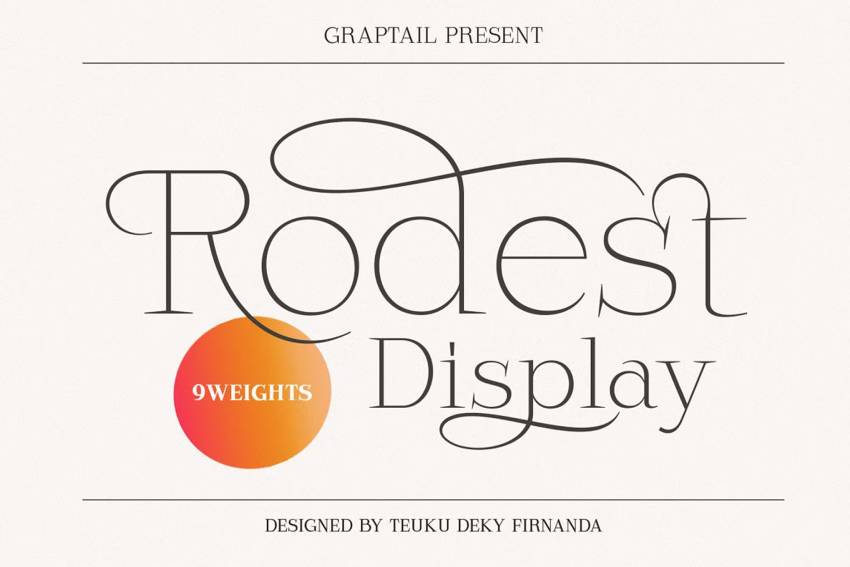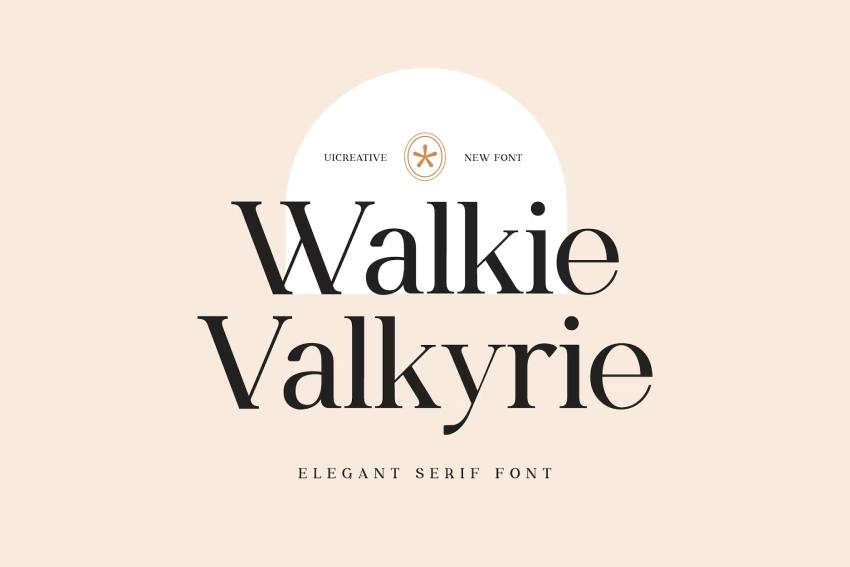
45 Best Thin Serif Fonts (Narrow and Skinny Fonts to Download)
An elegant thin serif font can be an excellent design choice. There are plenty of types of skinny serif fonts to admire, download, and try in your next project. We'll take a look at narrow serif fonts, thin fonts, and more from Envato Elements.
1. Greenold Modern Thin Serif Font
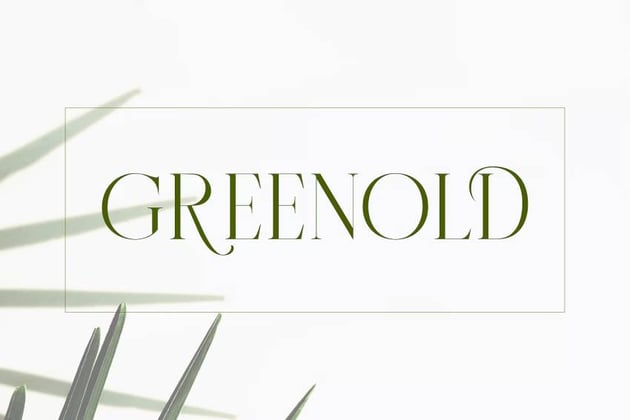
Slim serif fonts like Greenold are a treat to look at in any color. It comes complete with upper and lower case letters along with multilingual characters. Use it for invitations or on social media.
2. Curefancy Elegant Thin Serif Font
Looking for a font that is tall and skinny? Then this entry is coming right on time. It features both a regular font and an italic alternative, letting you play around with different styles.
3. Trovelo Serif Thin Font
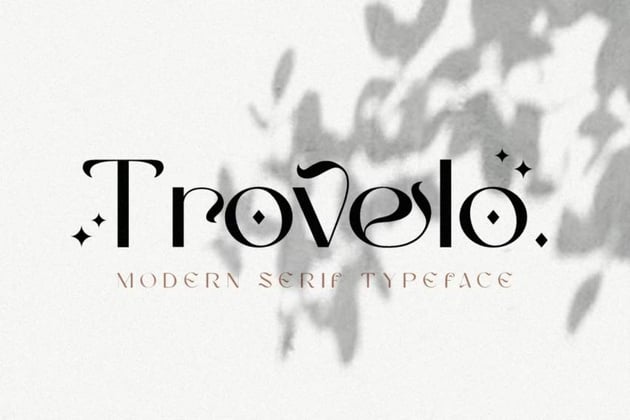
Download Trovelo if you like slim serif fonts with a unique charm. This modern typeface is multilingual and has some different glyph styles. You won't want to skip past this skinny font.
4. Victoria Modern Thin Serif Fashion Font
Go for a stylish thin and tall serif font like Victoria if you're working on a fashionable project. Its lines and serifs are flattering and complement just about any image you could pair it with.
5. Cellofy Narrow Serif Font
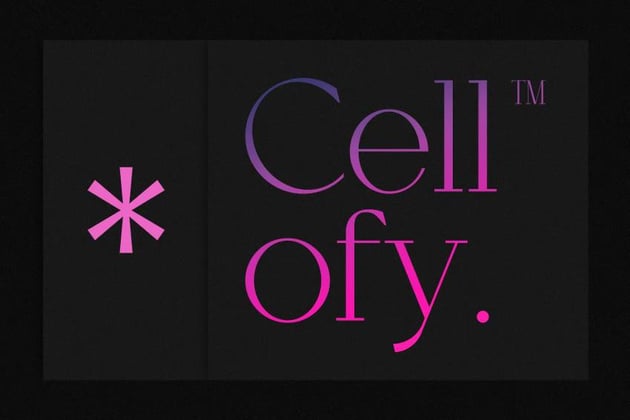
Turn to the Cellofy family if you've been on the lookout for thin modern fonts. It has everything you'd want from a 21st-century typeface, and it can be used just about anywhere.
6. Veilan Tall Serif Font
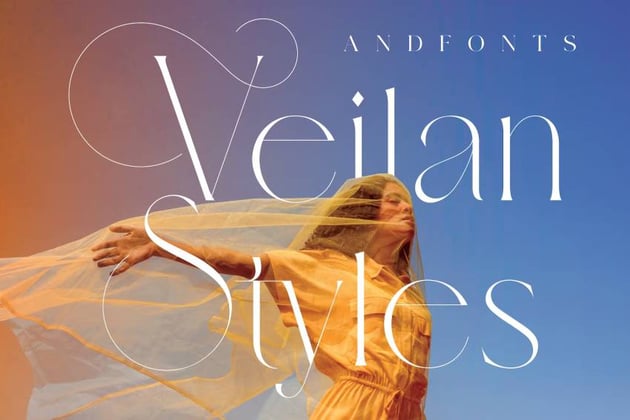
Veilan is for all the fans of thin and tall fonts. Its wispy letters show a sense of elegance and style that's hard to match. This slim serif font's lettering will look great in magazines or invitations.
7. Galvin Slab Serif Font Family Pack
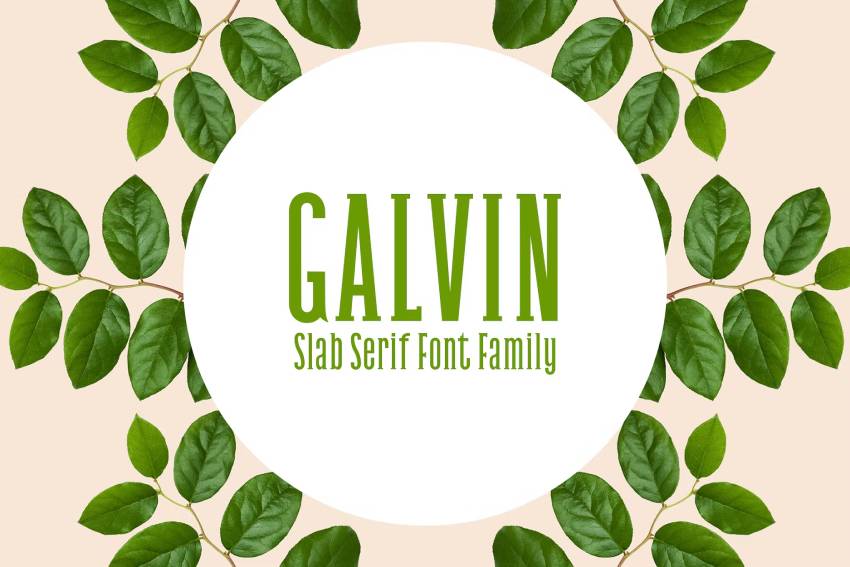
Unlike other thin and tall serif fonts, Galvin aims for a strong, bold aesthetic instead of elegance. Its rigid lines aren't uninviting, though. There are still some lovely curves to be found in this skinny font's glyphs.
8. Goldoni Thin Serif Font
Isn't this a stylish font? It fits in so well with photography. Try it with your fashion photos or photography portfolio, or try it in luxury branding projects.
9. Fulgate Thin Narrow Serif Font
Here's a visually interesting thin and narrow serif font. You don't see a design like this every day; it has such interesting strokes and could be a memorable design choice.
10. Metropolis Thin and Tall Font Family
Thin, straight fonts with lots of straight edges can make for a really memorable look. This one almost has an industrial vibe. Try pairing the skinny font with geometric elements.
11. Lorino Thin Slab Serif Font
Slab serifs are also one of the thin font types out there. This slab is a fun choice, perfect for stylish points of emphasis. Try dressing up the tall serif font in gold or in high-contrast situations.
12. Abell Skinny Serif Font Family Pack
This thin and tall serif font's letters have an unusually angular design. The result is a font that brings an unexpected aesthetic. This one could be a great choice for logo design.
13. Imperiem Regular Typeface
Check out the authoritative vibe we get from this thin serif font. The shape of these letters brings a very official look to the overall font aesthetic.
14. Empresso Classic Thin Slab Serif Font
Here's a thin slab serif that also comes with more. Take advantage of italic, light, regular, and bold weights too. It's a stylish family of thin, modern serif fonts.
15. Porto Display Spur Tall Serif Font
This is a nice thin serif font to add to your collection because you get so much with it. You get a thin font, but you get two other weights, as well as alternates.
16. Opheline Extra Light Thin Serif Font
Here's an elegant, narrow font with plenty of potential. If you're looking for a stylish type design for a minimalist design, this one would fit in nicely. It looks lovely with plenty of space.
17. Secret Darling Classic Monoline Font
Thin straight fonts are great, but how about something with some dramatic curve? This slim serif display font has such fun, memorable serifs to go with its thin strokes.
18. Glamour Luxury Serif Font Family
Thin fonts really lend themselves well to luxurious aesthetics, don't they? This beautiful font family is no exception, and you get extras to experiment with too.